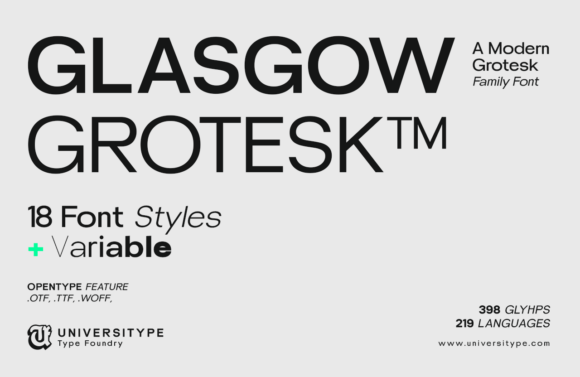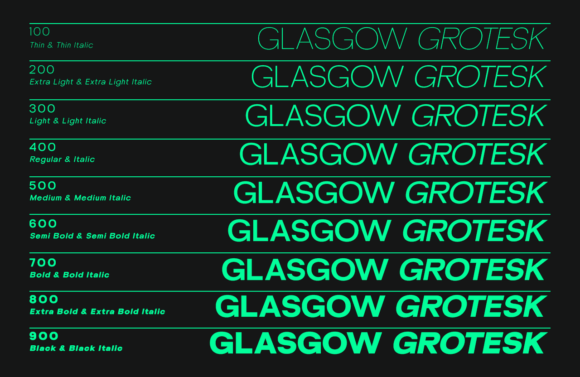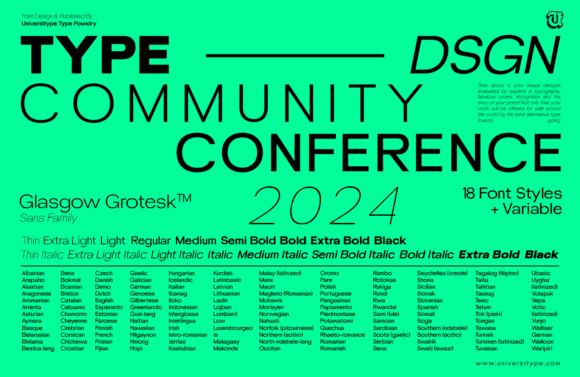
Glasgow Grotesk Font
About the Glasgow Grotesk Font
From logos to headlines, the Glasgow Grotesk Font is the perfect choice for making a lasting impression. Experience the full spectrum of typographic potential with UT Glasgow Grotesk. Crafted by the acclaimed Universitype Team, this versatile, sophisticated sans-serif font encapsulates the fine balance between modern appeal and elegant minimalism. With 18 styles to choose from, UT Glasgow Grotesk lets you fine-tune weight and width with unprecedented ease, giving your designs a personalized edge.
As a variable font, UT Glasgow Grotesk adapts smoothly to fit your design vision, regardless of the medium. Whether you’re orchestrating a harmonious brand identity, styling interactive media, or tailoring innovative web designs, UT Glasgow Grotesk’s dynamic capabilities ensure an exact fit to your exact needs. Be it digital or print, its range enables clean yet commanding typography.
Savor the sleek elegance of UT Glasgow Grotesk’s thin style. This subtle touch of sophistication sets it apart, making it a prime choice for headlines, branding, editorial design, and more. The clean lines and balanced proportions emblematic of its Grotesk roots ensure a straightforward, no-frills approach to your typography.
With UT Glasgow Grotesk, you gain the freedom to perfect your typography across various uses. For web design, its adaptable nature deftly navigates different screen sizes and resolutions. In the realm of interactive media, the ability to tweak weight on demand enables dynamic text rendering, enhancing user experience. Then there’s its role in brand identity systems – 18 styles at your disposal to forge consistency across media and provide nuanced expression in diverse contexts. Lastly, typography-focused projects will benefit from the font’s stylistic breadth, inviting creativity on book covers, posters, or typographic art.
Step into the future of typography with UT Glasgow Grotesk and mold your creative vision with precision, dynamism, and style.
Glasgow Grotesk Font Usage Examples
Glasgow Grotesk Font Example